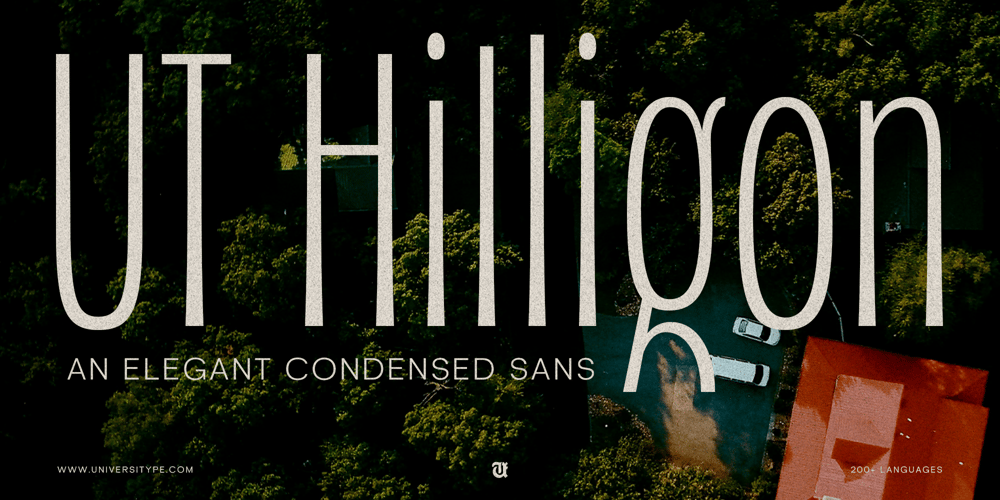
UT Hilligon
UT Hilligon font
UT Hilligon Font Family was designed by Muh. Aswar, Novan Arisandi and published by Universitype. UT Hilligon contains 1 styles and family package options. UT Hilligon transcends conventional typography, weaving the organic charm of nature into a luxurious aesthetic. Inspired by the intricate patterns of pine cones, this typeface embodies the warmth and complexity of the outdoors, offering a fresh perspective on design. Crafted for discerning creators, it strikes a harmonious balance between modernity and nature’s grace, making every design endeavor a captivating statement.Sophisticated Elegance Tailored for Luxury with its refined character, UT Hilligon exudes an air of sophistication, ideal for upscale brands and premium projects. Each letterform hints at nature’s nuances, featuring clean, flowing lines that evoke understated luxury. Whether adorning a high-end logo, enhancing an editorial layout, or elevating an exquisite product label, this typeface resonates with audiences who value both artistry and meticulous craftsmanship.Inspiration BehindUT Hilligon draws inspiration from the scattered beauty of pine cones. The textured surfaces and symmetrical spirals inspired the designer to transform these organic forms into a striking typographic language. The outcome is a typeface that celebrates nature’s intricacies while offering the structured lines essential for contemporary design. Usage Suggestions Luxury Branding: An impeccable fit for high-end brands in fashion and lifestyle, UT Hilligon imparts a refined, distinctive touch. Marketing Materials: Elevate brochures, flyers, and posters with a distinguished character that seamlessly merges natural elegance and sophistication. Digital Design: Enrich websites, social media graphics, and digital campaigns with a luxurious aesthetic that invites engagement. Editorial Excellence: Create visually compelling magazine layouts and stylish book covers that exude refinement and taste. Packaging Aesthetics: Perfect for premium product packaging, including gourmet foods, skincare, and beverages that demand an exquisite presentation. Technical Specifications:Glyph Coverage: Extensive, featuring over 400 glyphs, including Latin characters, punctuation, and special symbols.Special Features: Includes ligatures and stylistic alternates for enhanced creative expression.